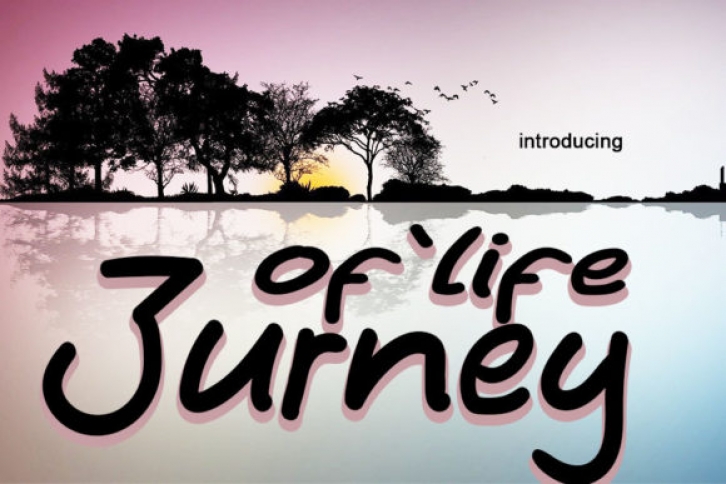
Journey of Life is a cute and whimsical handwritten font. No matter the topic, this font will be an incredibly asset to your fonts’ library, as it has the potential to elevate any creation.